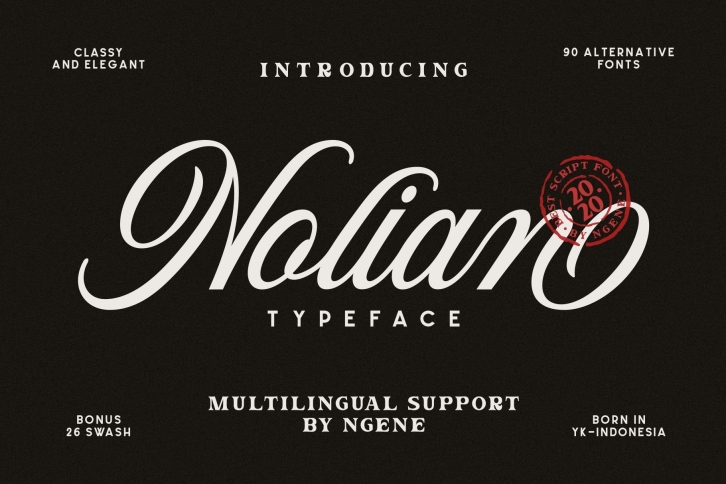
Nolian Script is a trendy and unique font with an authentic style. It was designed by Ngene and it's a great choice for creative people who need such a font. It was released on September 3, 2020 and the file size is 10.8 MB. Nolian Script will add an organic vibe to any design idea!